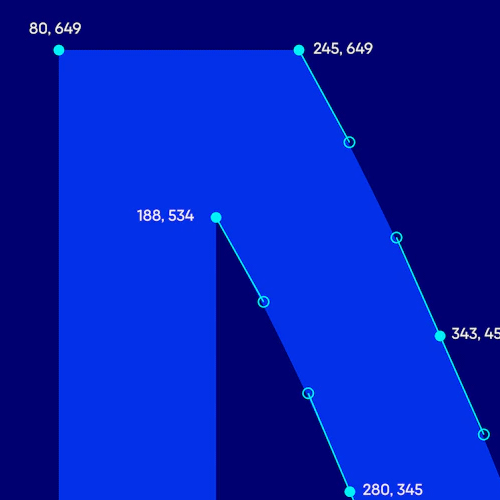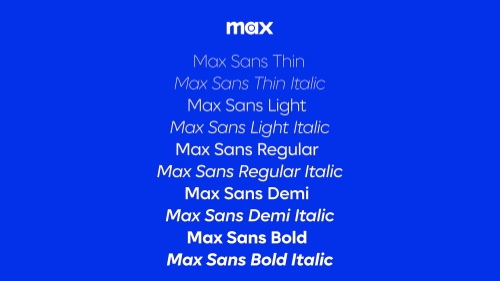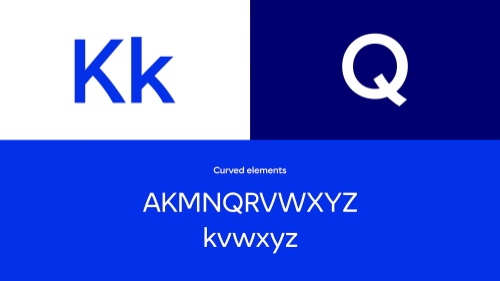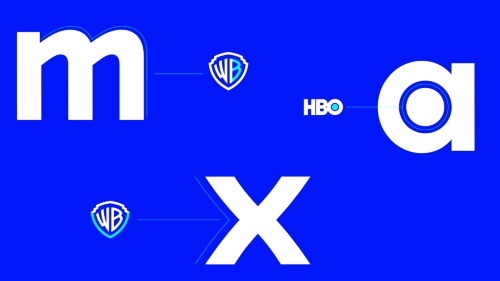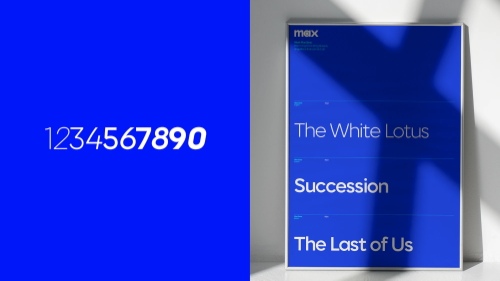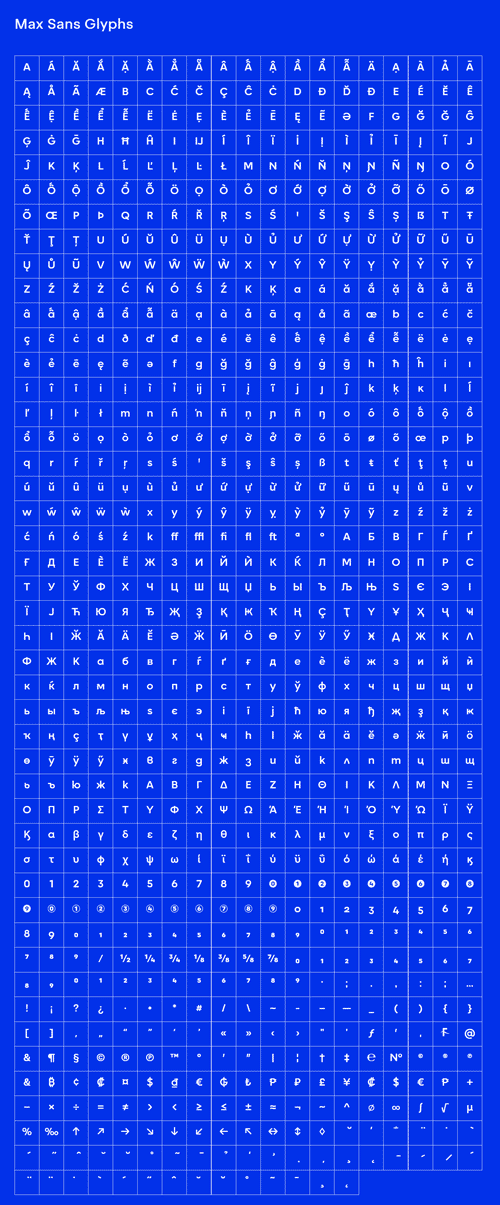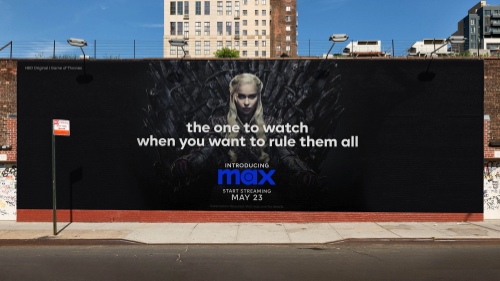
Max Sans - 10 Styles Font Family for Warner Media
- A modified version of F37 Moon was the perfect choice when HBO Max became simply Max in April 2023, after WarnerMedia merged with Discovery, creating a new company called Warner Bros. Discovery. Max is built around the libraries of Warner Bros., Discovery Channel, HBO, CNN, Cartoon Network and many more, as well as creating its own programming. The friendly font comes in 10 different styles and includes extended Latin, Greek and Cyrillic alphabets.